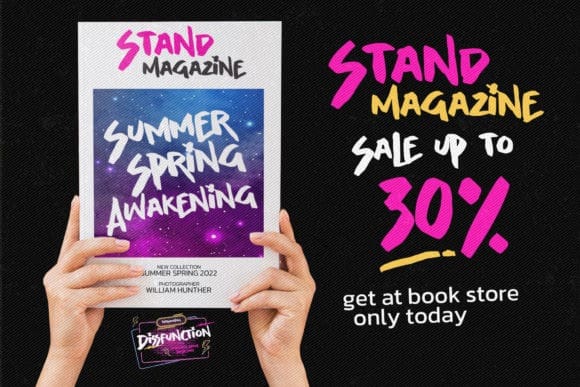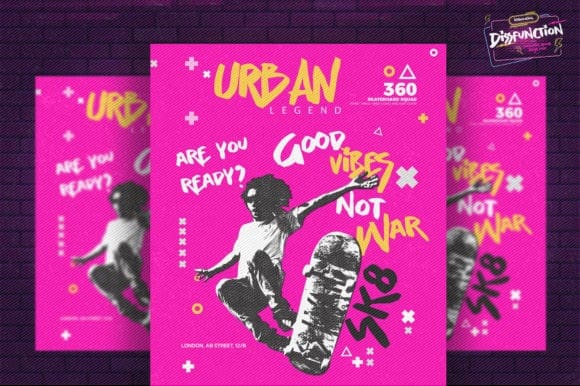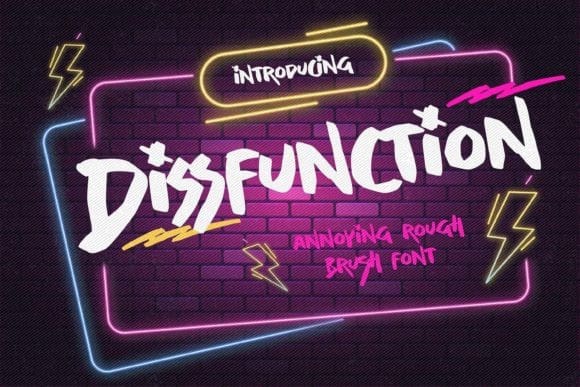
Dissfunction Brush Font
Dissfunction Brush Font, an annoying Rough Brush Display Font with a natural handwritten feel. This handmade font will make your design naturally beautiful. It is perfect for any design project such as Invitation, logo, book cover, craft, or other design purposes.
Dissfuntion has charming, authentic, and relaxed characters that will add a more natural look to your text.